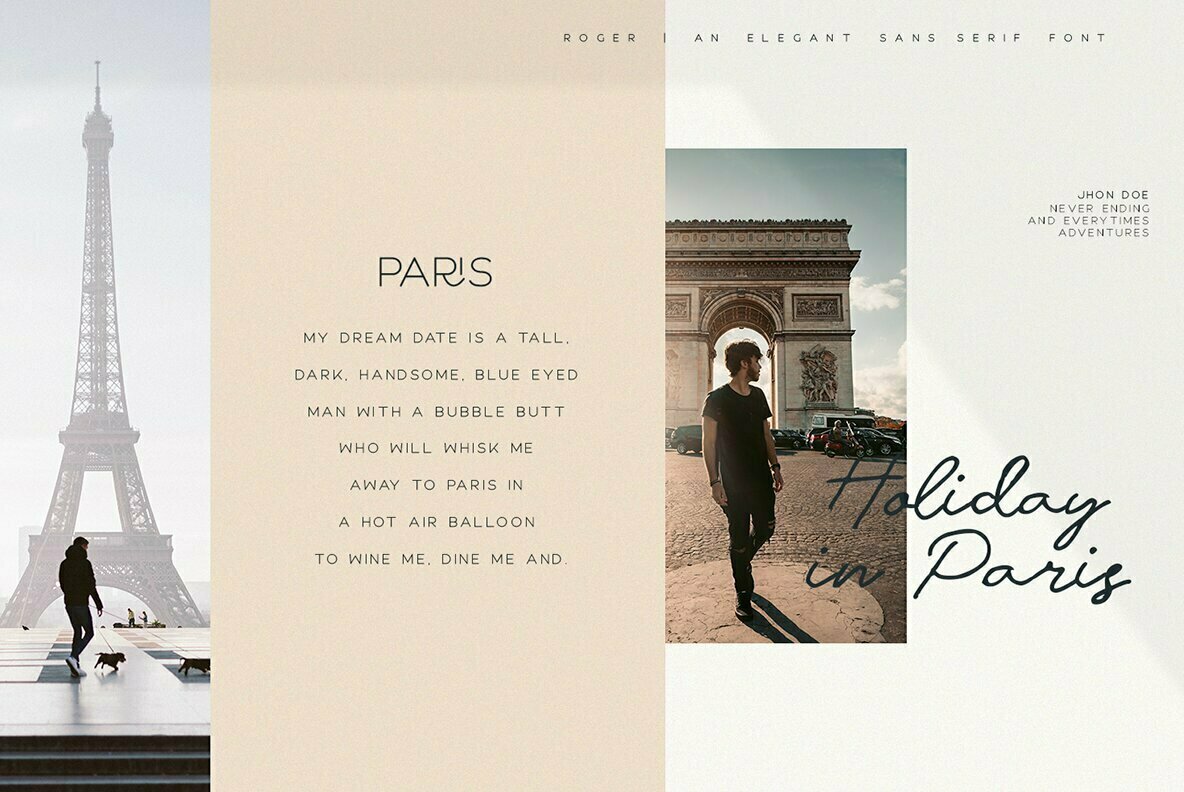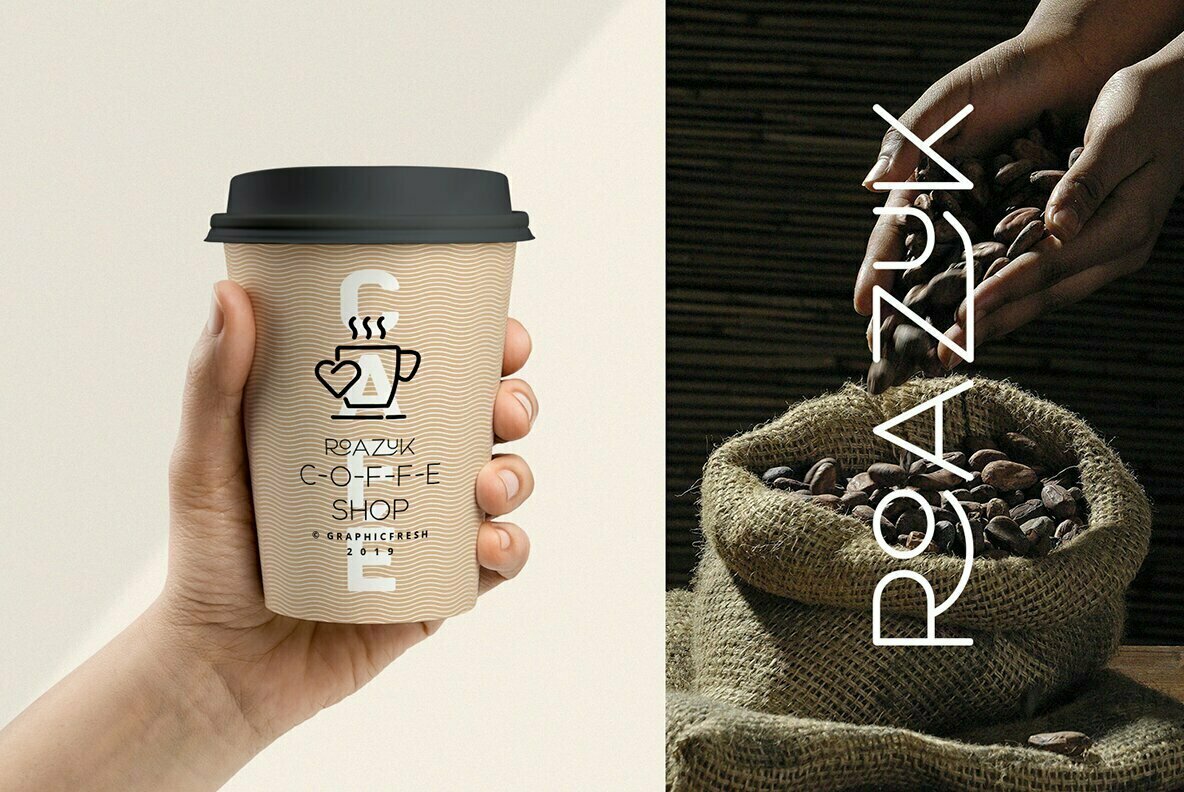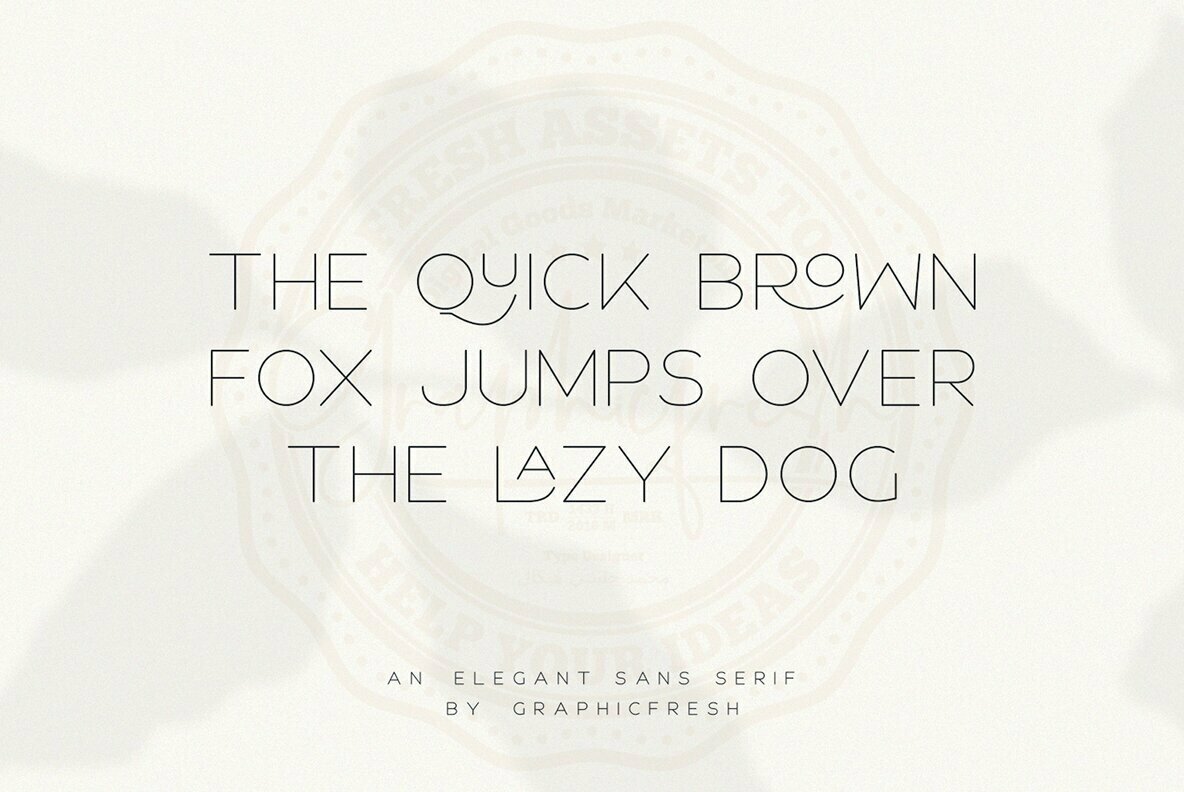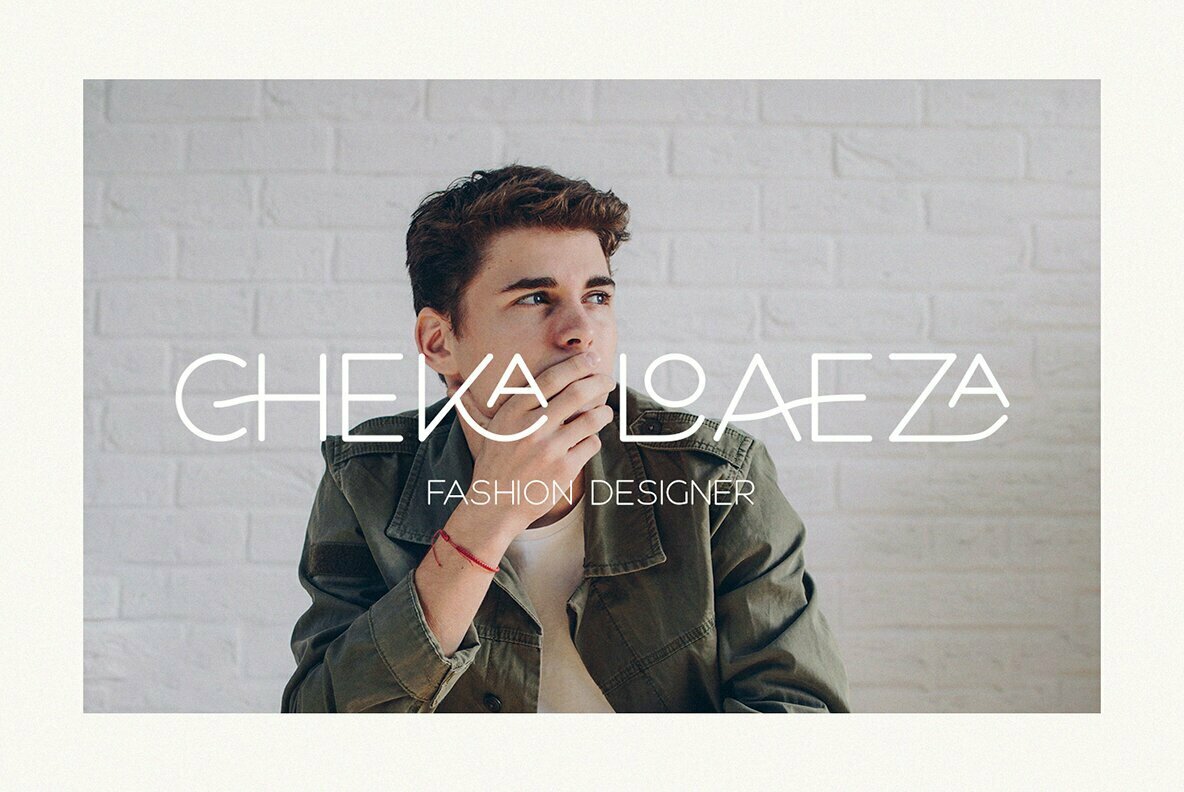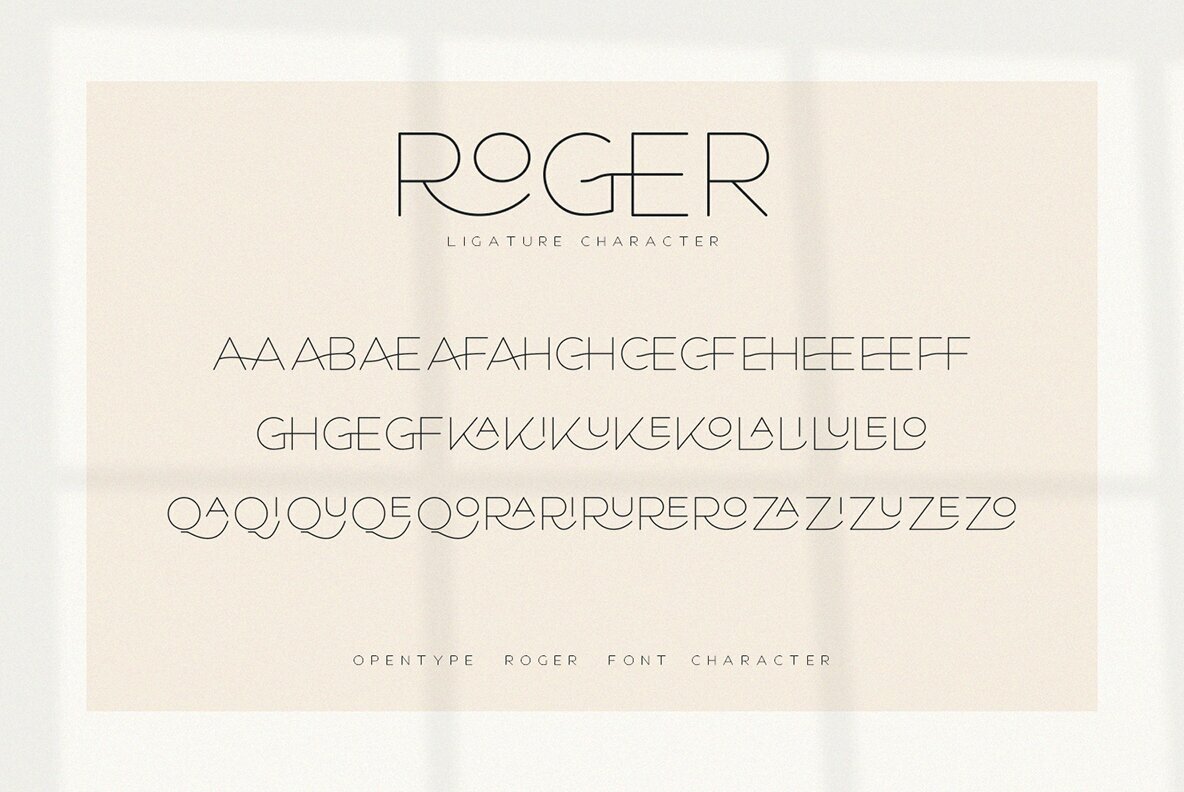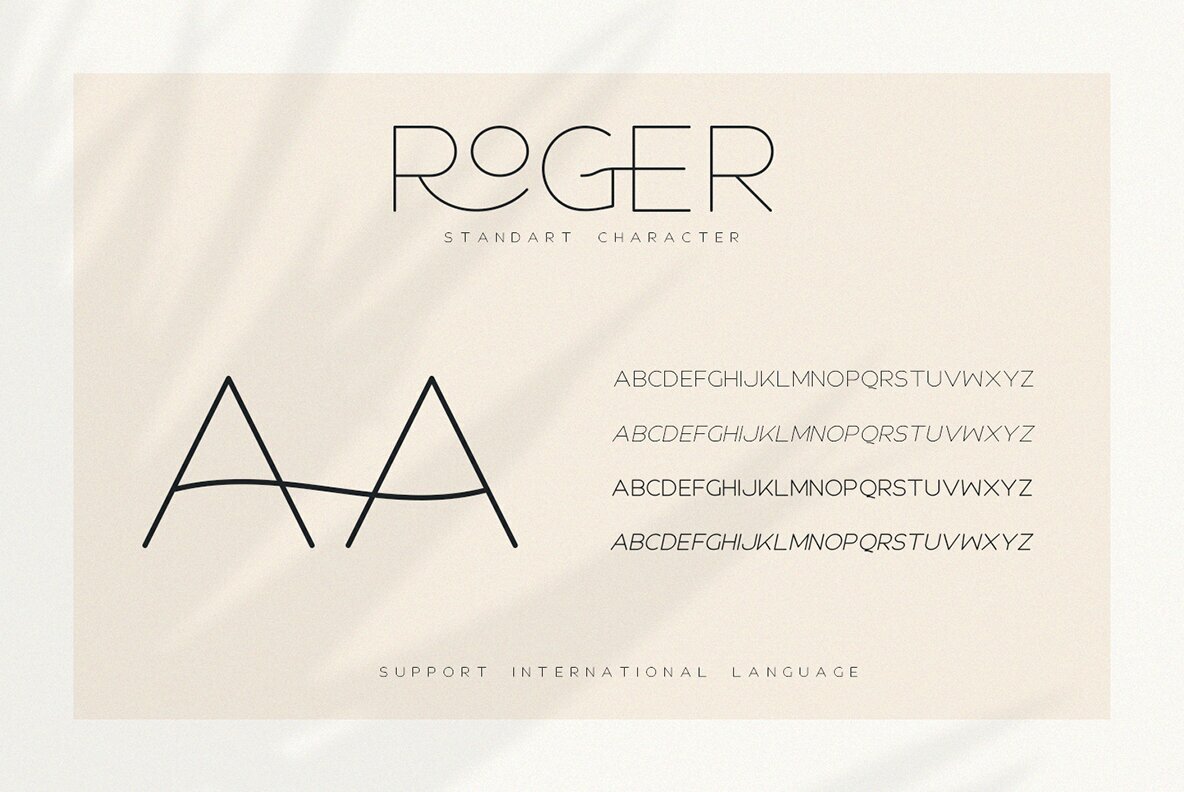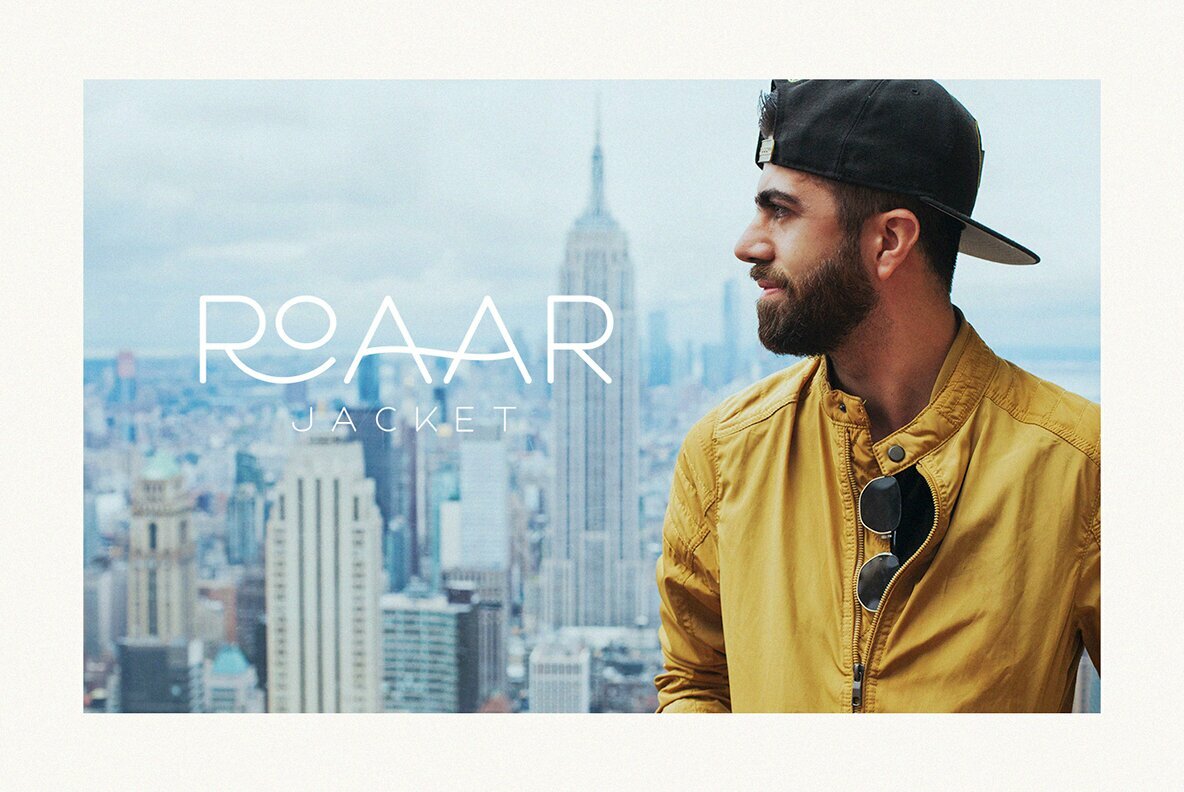
Roger Font
Roger stands as a quintessential sans serif font, offering elegance and minimalism for a diverse range of design needs. From the subtle sophistication of logos to the expansive canvas of large-scale artworks, Roger provides an aesthetic that is both timeless and contemporary.Roger: Elegant Sans Serif with Minimalist Flair
The Roger font is particularly suitable for logos, name cards, magazine layouts, invitations, and headers, ensuring clarity and style across all formats.